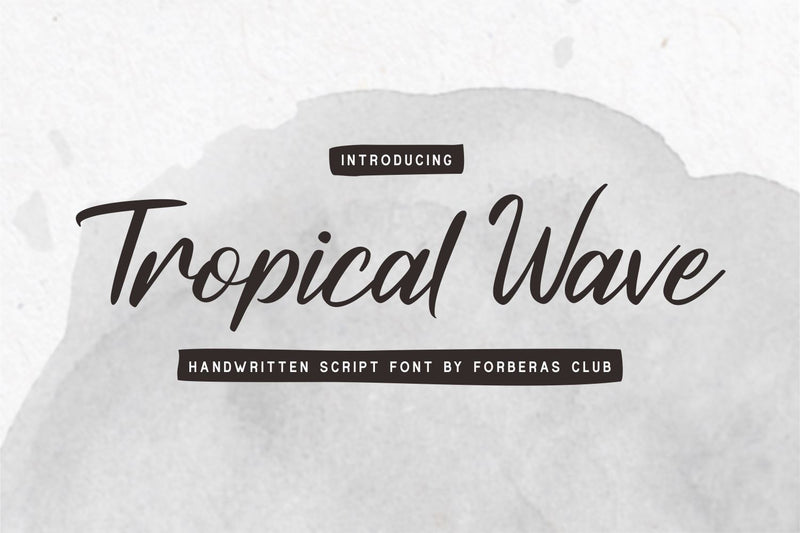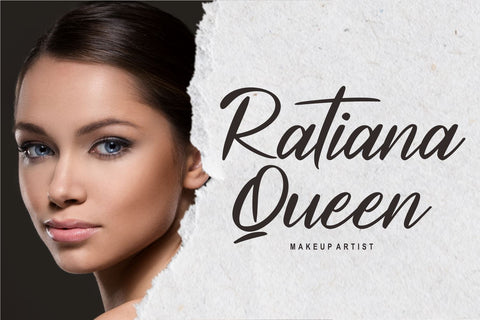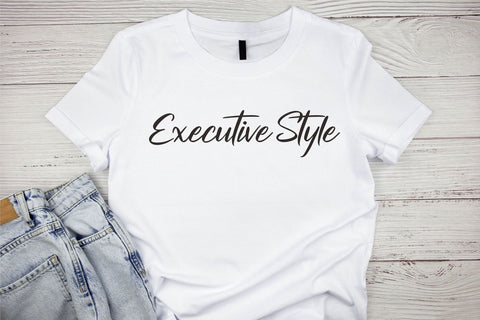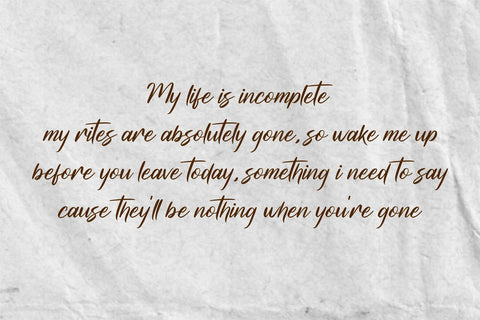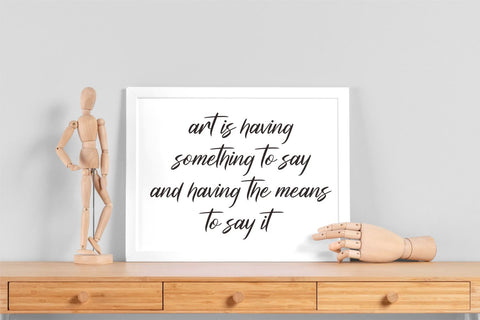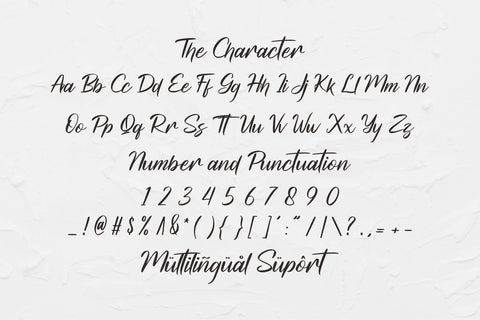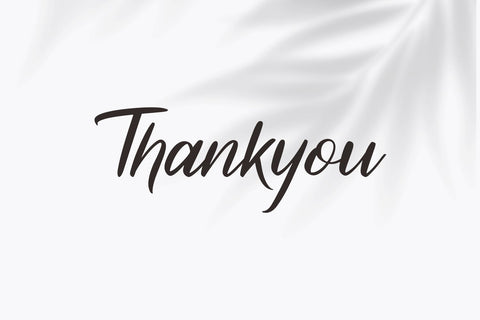
Tropical Wave
Introducing Tropical Wave Font by Forberas Club
Tropical Wave is a Modern Handwritten Font. Tropical Wave perfect for book cover, product packaging, branding project, megazine, social media, skate zine, band font, or just used to express words above the background. This font includes TTF and OTF, This font also multilingual support.